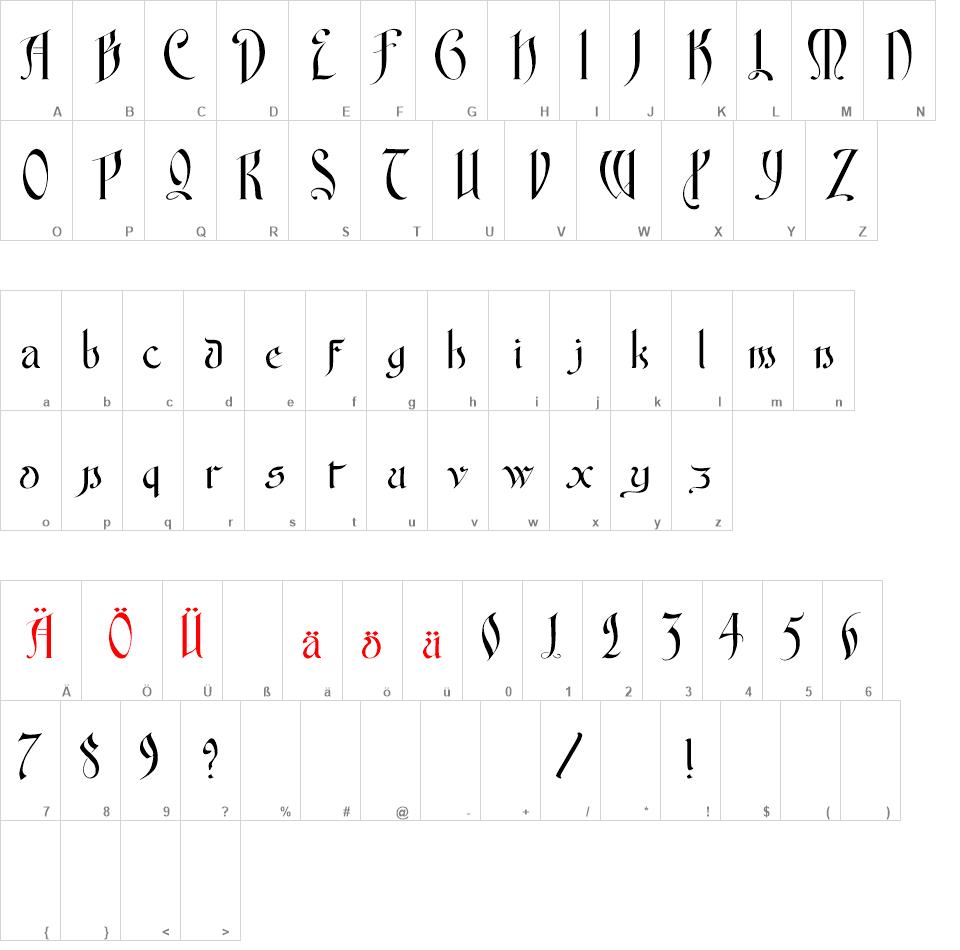
Fontenay Fancy
A Lewis F. Day's Modern Fancies revival. Only Western Latin characters and accented characters, numerals and basic interpunction. Smallest read size 18 pt.